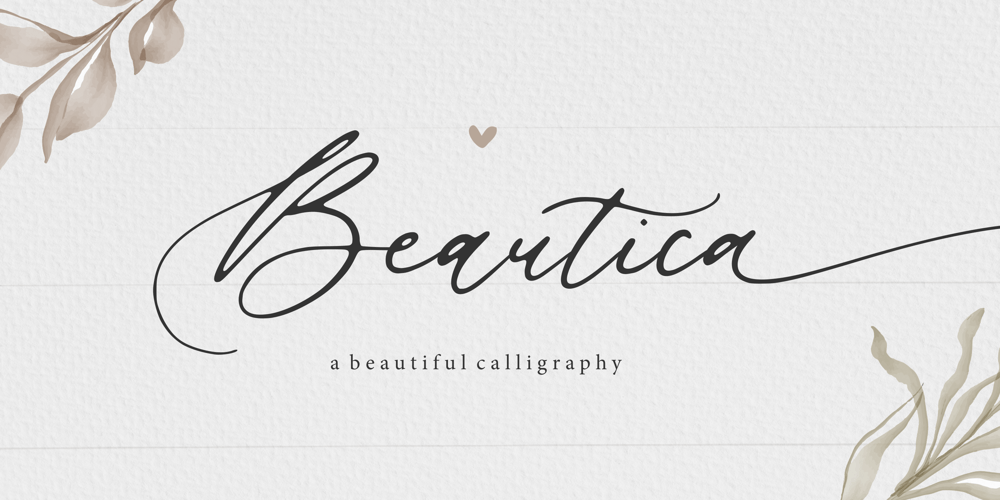
Beautica
Beautica font
Beautica Font Family was designed by Restu Angga and published by Balpirick. Beautica contains 1 styles and family package options. Beautica is a Beautiful Calligraphy Font.Beautica is a flowing handwritten font, described by an elegant touch, perfect for your favorite projects. Fall in love with its incredibly distinct and timeless style and use it to create spectacular designs!Beautica also multilingual support.Enjoy the font.Thank you!